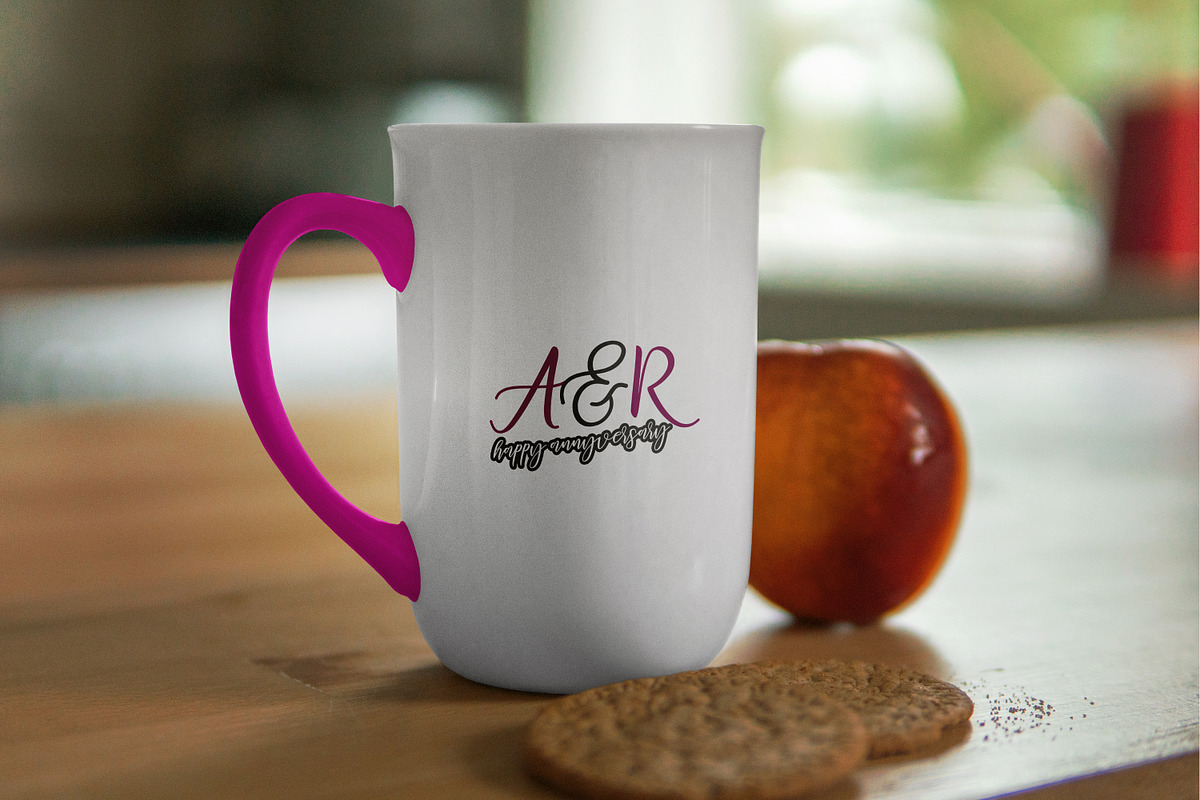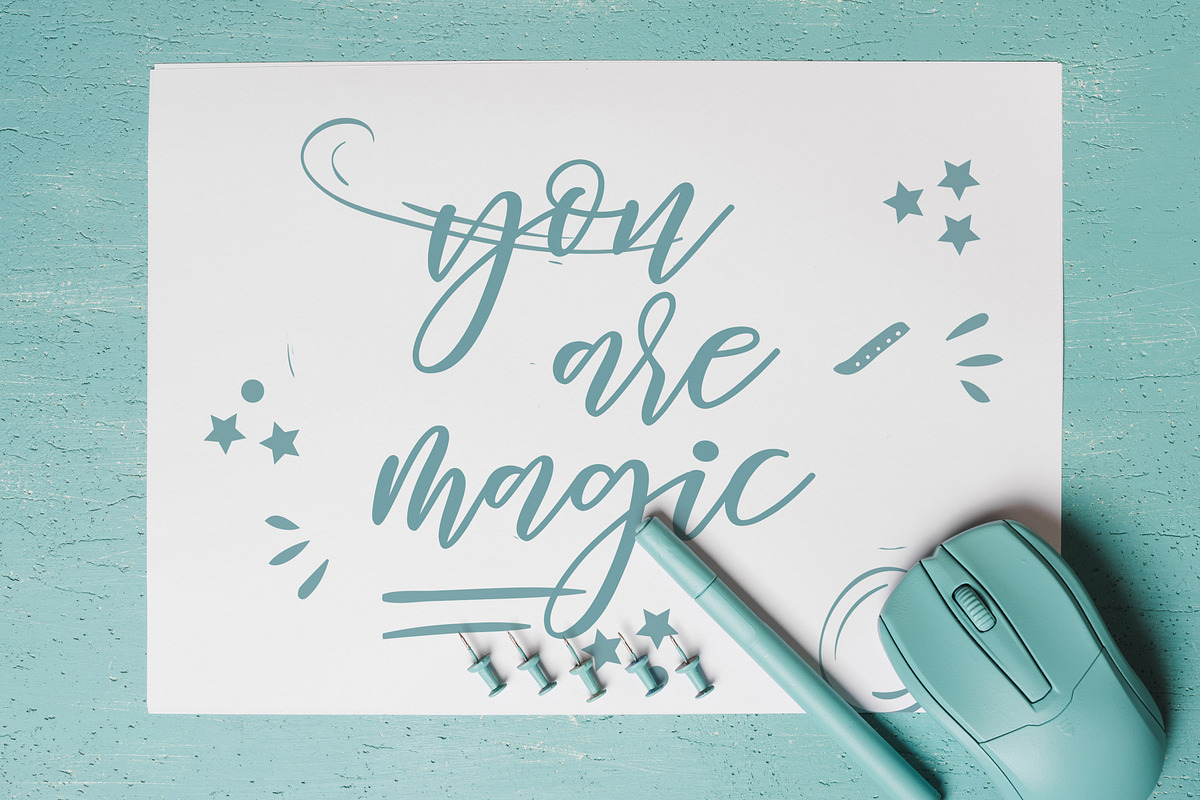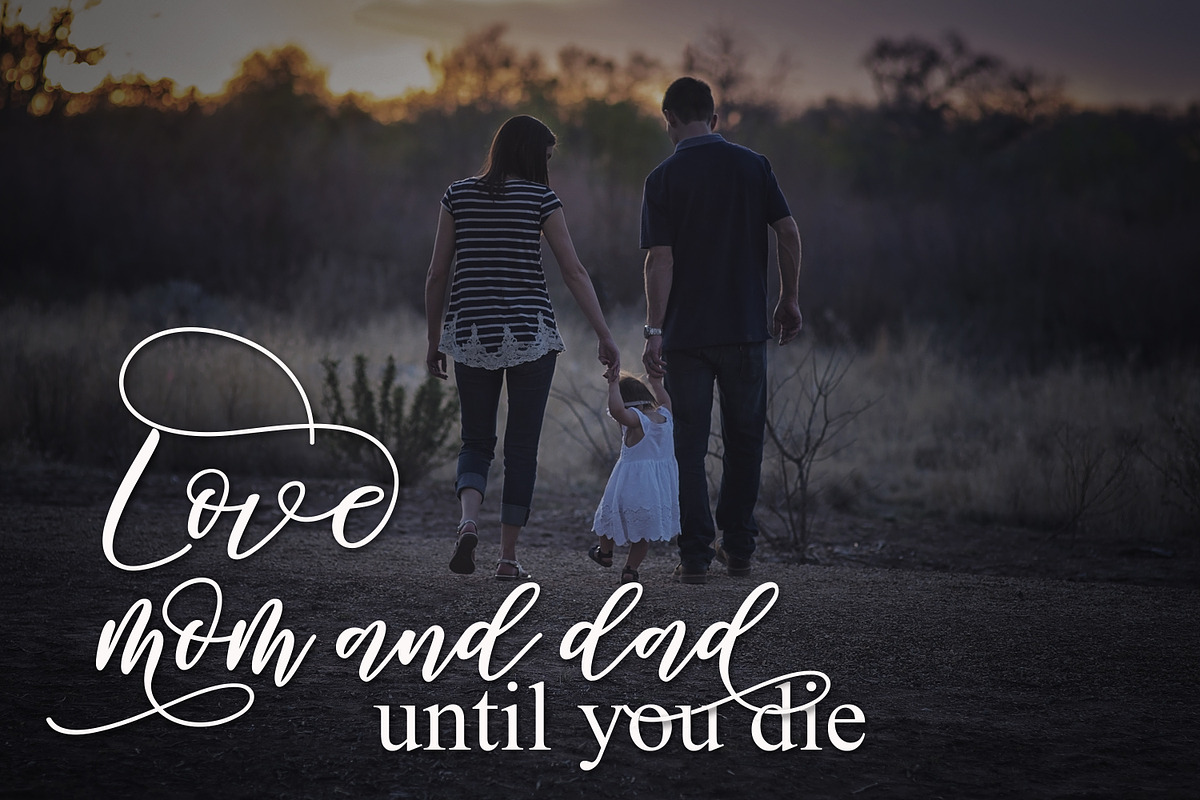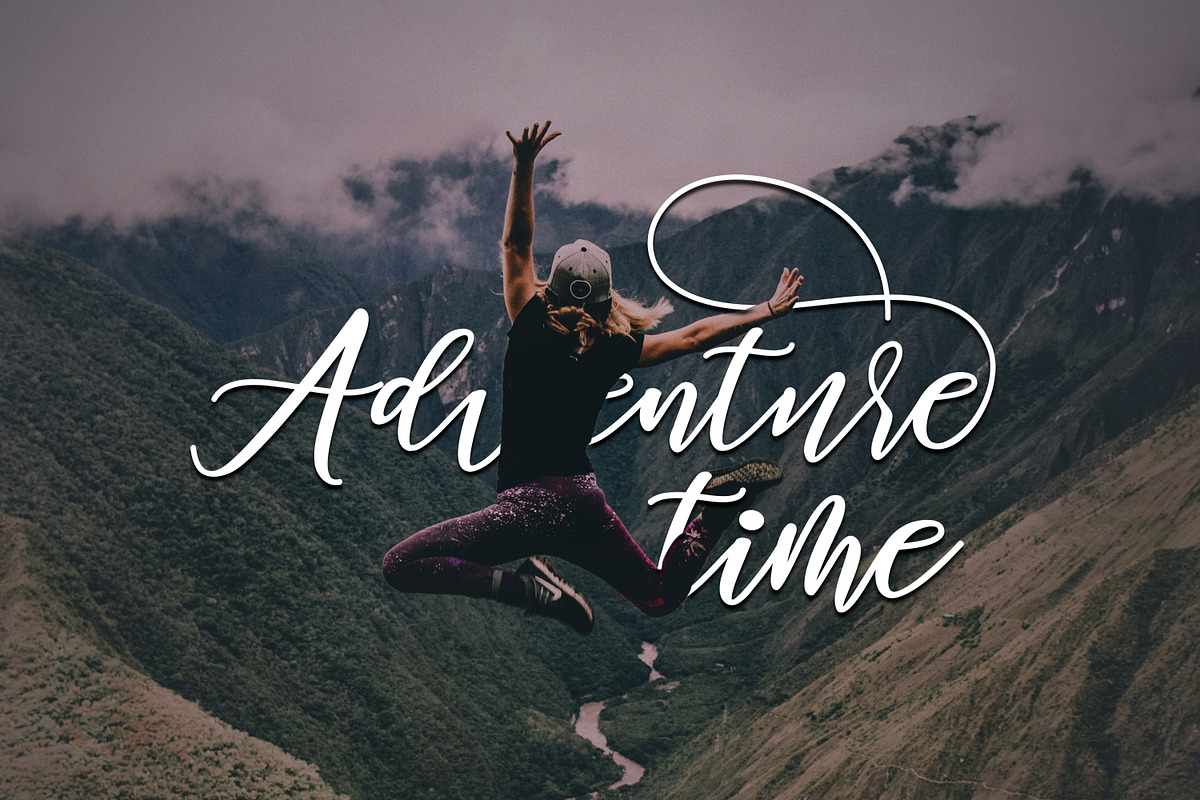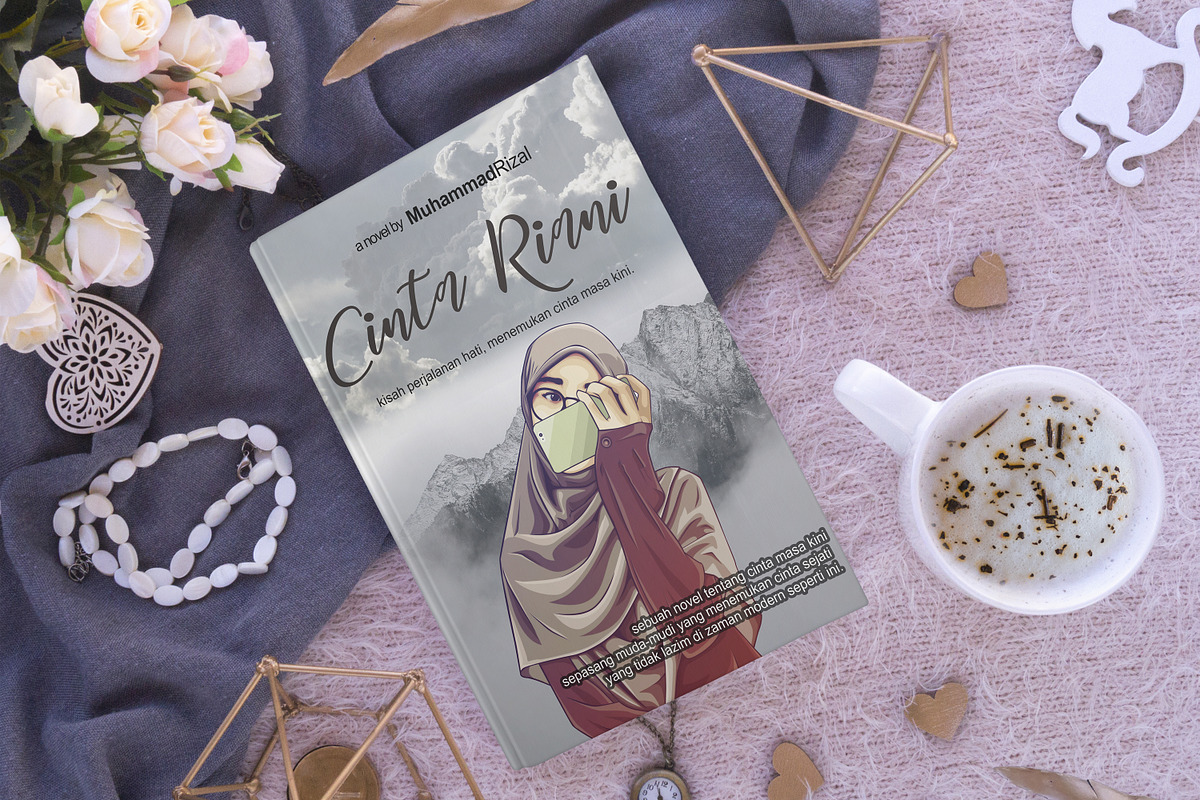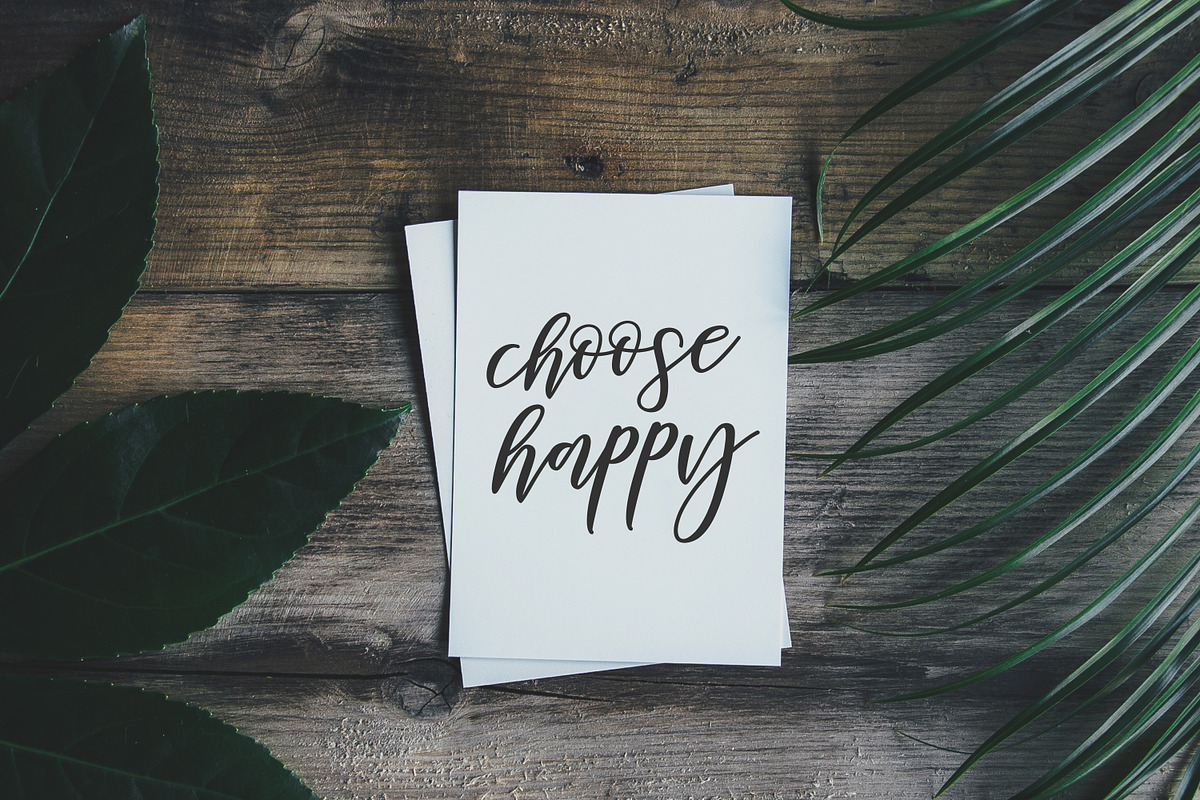
Diary Amily Script
welcome back to my shop, on this occasion I would like to present a font that I named "Amily's Diary". This font was inspired by a writing in a beautiful woman's diary, and whatever was passed was always written in the book, and the diary being a medium of appreciation for him, I saw and read all the contents of the book full of love poetry. so don't hesitate to use this font for a loving design.
Diary Amily Script is perfect for branding, wedding invitations, magazines, mugs, business cards, quotes, posters, and many more that you can use on your big project will be very beautiful.
Diary Amily Script is equipped with the OpenType feature and has many glyphs. and of course having a lot of glyphs will be able to choose letters to your liking, lots of variations and choices for each letter, so you can customize your design choices and also support other languages.